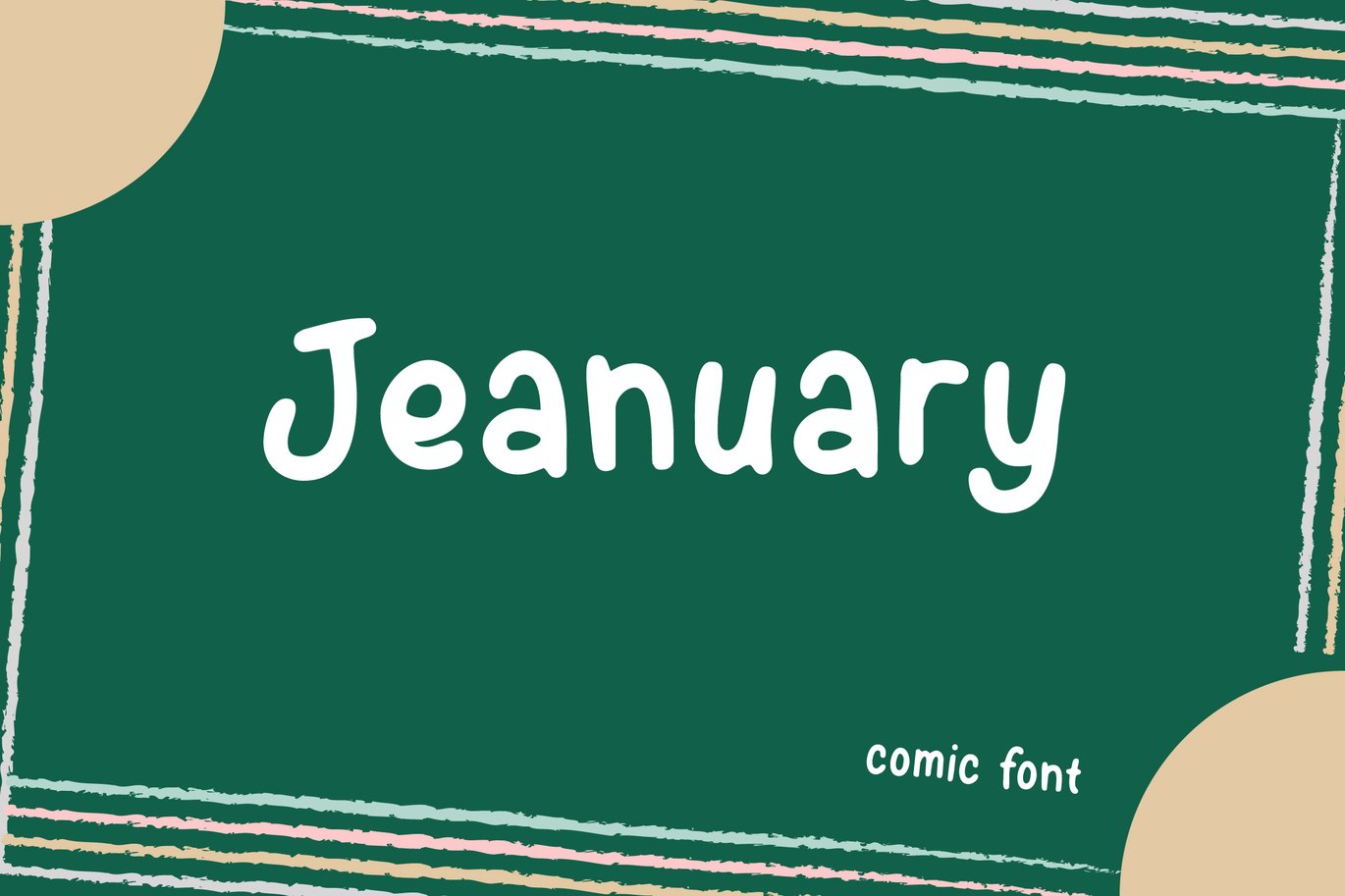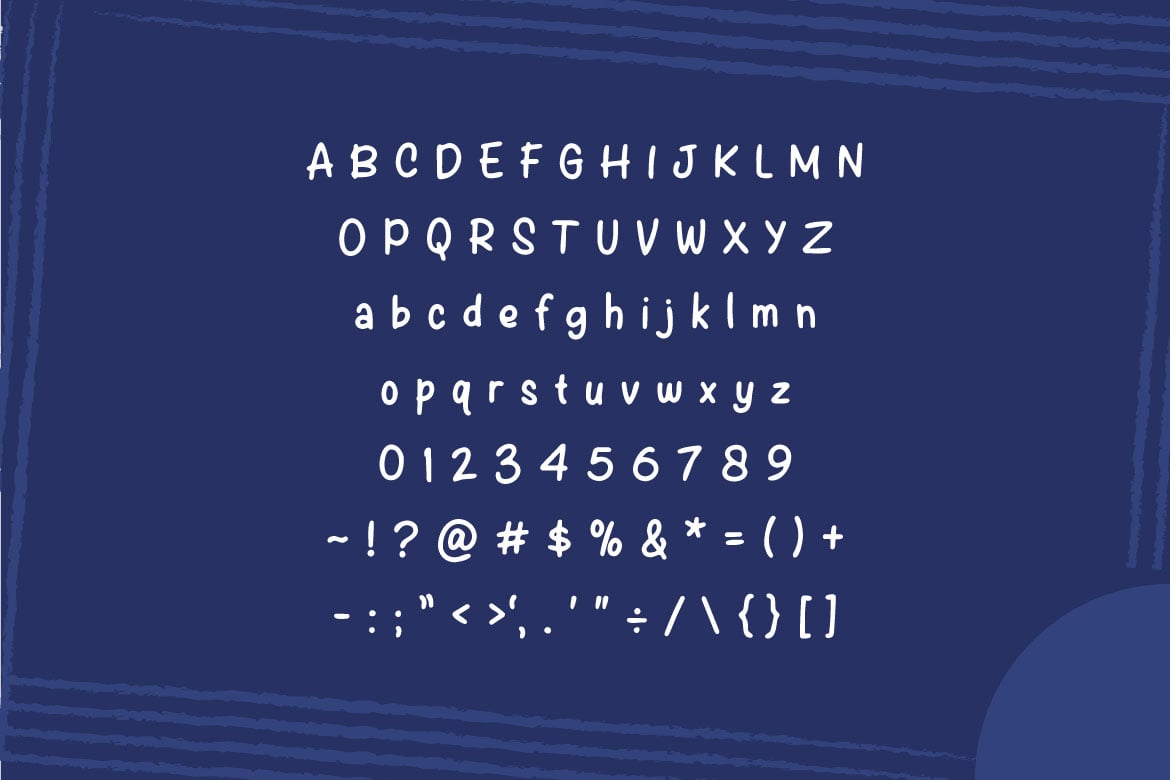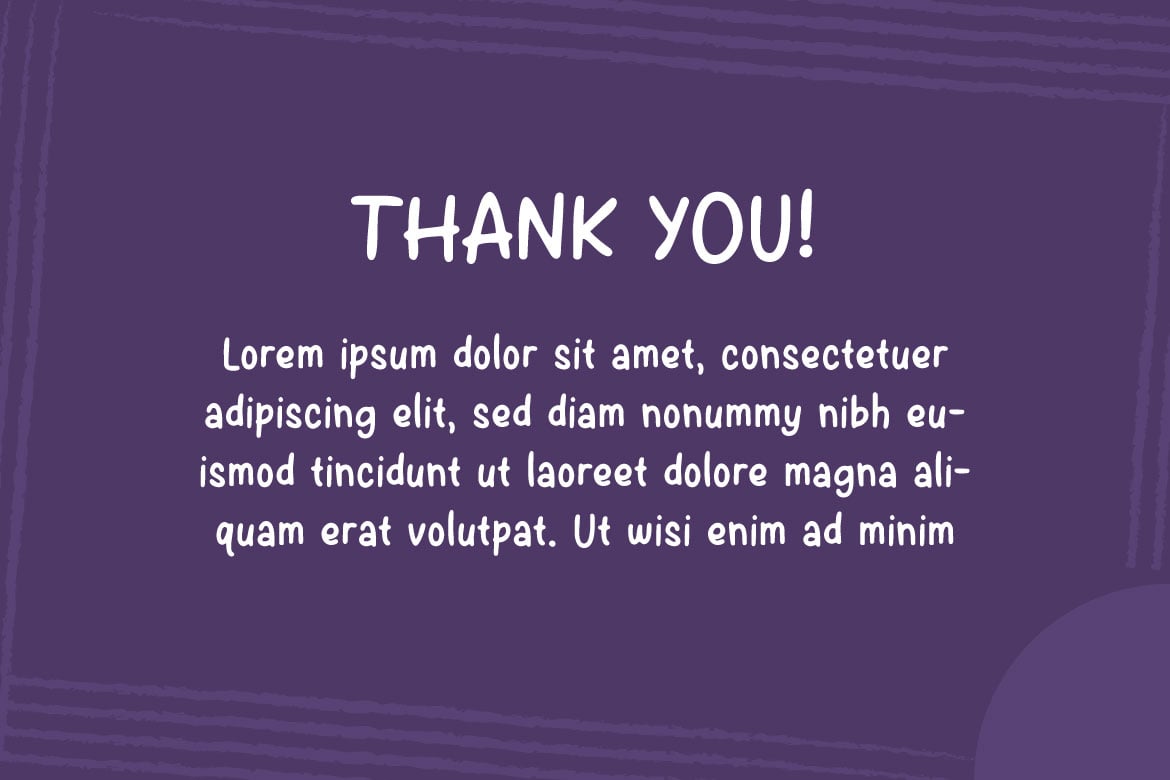
Jeanuary – Comic Font
If you are looking for a comic display font with hand made looking, meet JEANUARY
Jeanuary is perfect for any works, such as your comic, poster, card, book title, headline of news, banner, flyer, stationery and many more. It also can be used in Any scale work.